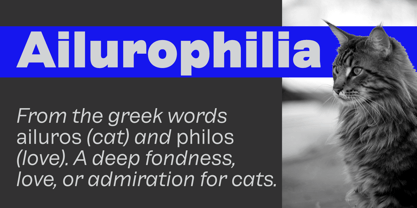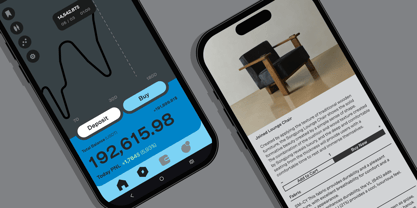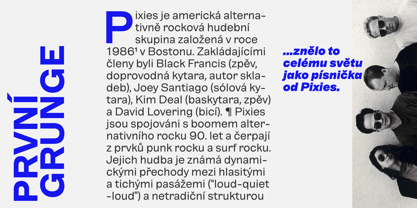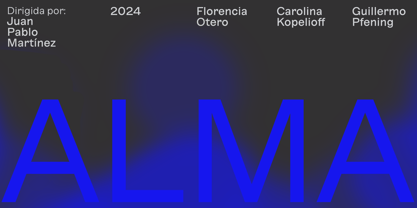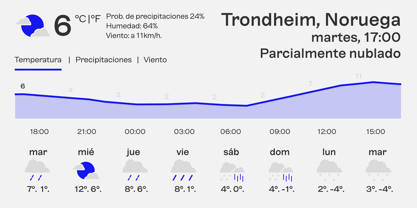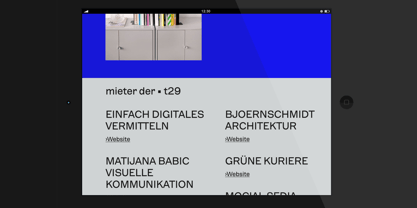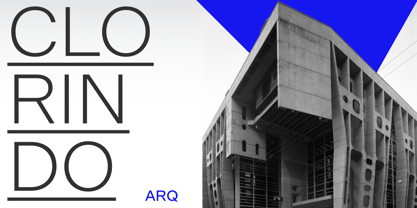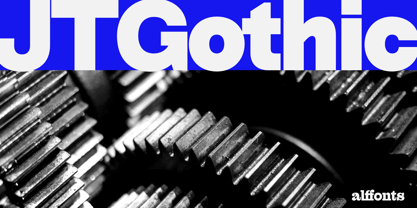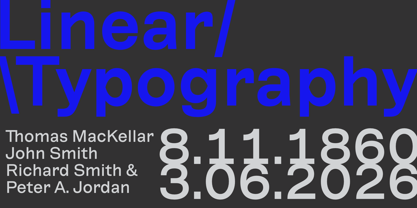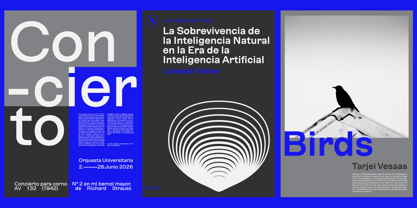
JTGothic
JTGothic is the evolution of Jouets—a grotesque sans serif that bridges classic influence with a contemporary voice. Designed to perform flawlessly in text, it reveals a distinctive character at display sizes.
Inspired by late 19th-century lining gothics, JTGothic amplifies their most expressive features, creating a sharper and more memorable tone than typical grotesques. Its carefully crafted italic adds contrast and personality, expanding its expressive range.
Highly versatile, JTGothic is well suited for branding, editorial design, and visual identity systems.
With 8 weights plus matching italics, the family offers 16 styles—providing a flexible and cohesive typographic palette for a wide range of applications.